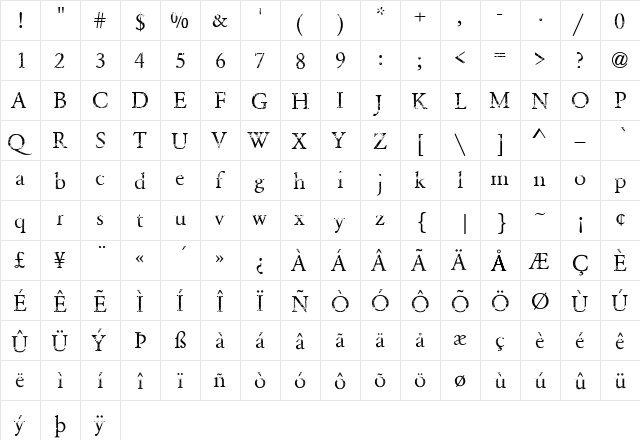
NIGHTMARE PILLS Regular
| Foundry | Guilhem Greco / Herofonts |
| Designer | Greco Guilhem / Herofonts |
Design Context for NIGHTMARE PILLS Typeface
NIGHTMARE PILLS takes a measured approach to typography — its balanced proportions and neutral character make it a reliable workhorse for both digital and print work.